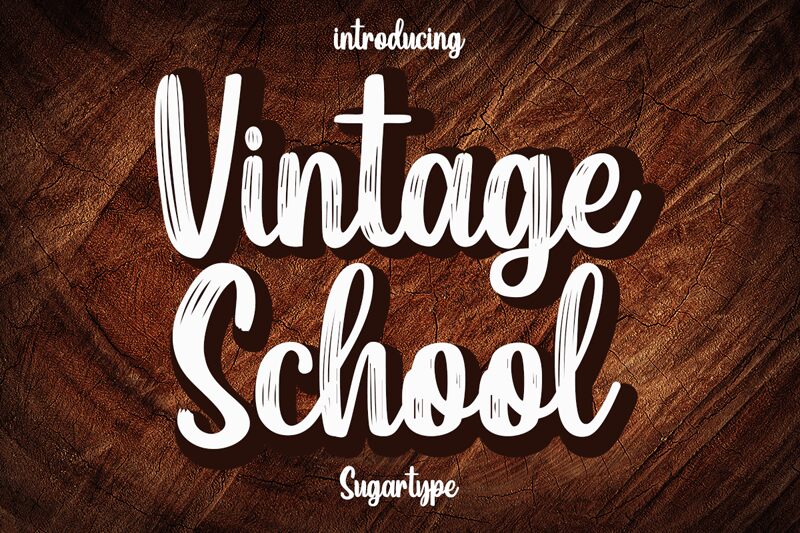
Vintage School, designed by Sugartype, is an authentic brush script font that exudes a thick vintage impression.
With its bold and luxurious character, this font will elevate your design project to new heights. Perfect for posters, brochures, and quotes, Vintage School adds a stunning touch to any print material. It also shines on thank you cards, greeting cards, and wall art with its vintage charm. If you're looking for a font that oozes nostalgia and elegance, Vintage School is the ideal choice.
Whether it's print on demand or planner designs that require a vintage touch, this font will make your creations truly remarkable.